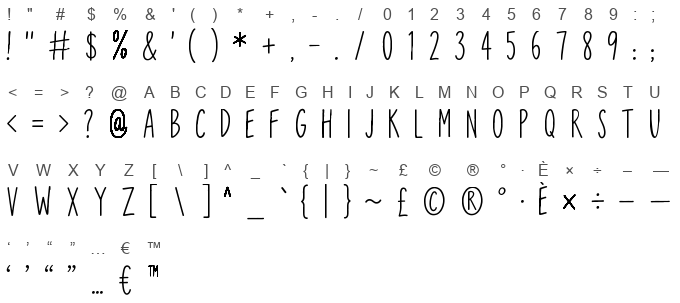
Sunny Brunch is a handcrafted handwritten font family with tall, relaxed letterforms and a natural human touch. Its playful yet clean appearance creates a warm and approachable personality, making it a great choice for branding, logos, packaging, posters, invitations, social media graphics, menus, and other creative projects.
Designed with four carefully crafted weights, Regular, Medium, SemiBold, and Bold, Sunny Brunch offers flexibility while keeping a consistent handwritten character across different styles and layouts.
Sunny Brunch